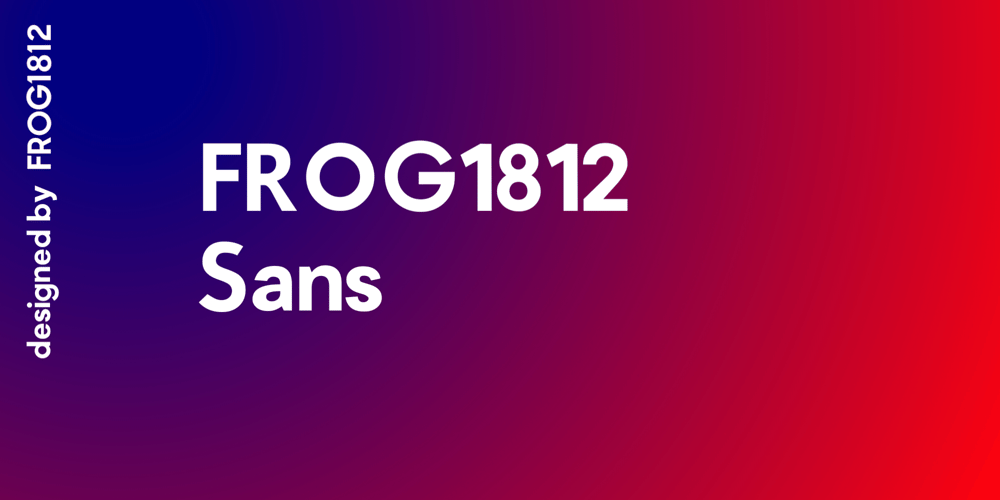
FROG1812 Sans Font Family was designed by Vsevolod Syzdykov, Vladislav Zhuk, Dmitry Alekseev and published by Frog1812. FROG1812 Sans contains 2 styles and family package options. Introducing FROG1812 Sans, a beautiful, modern font. Ideal for logos and headings.FROG1812 Sans was developed in 2020 to make our projects look more diverse. Before that, we only used the geometric FROG1812 Sharp, which has ceased to meet all our requirements.Follow us in social mediaVK | Facebook | Instagram